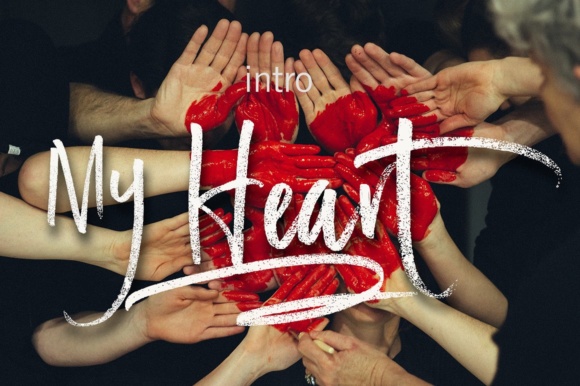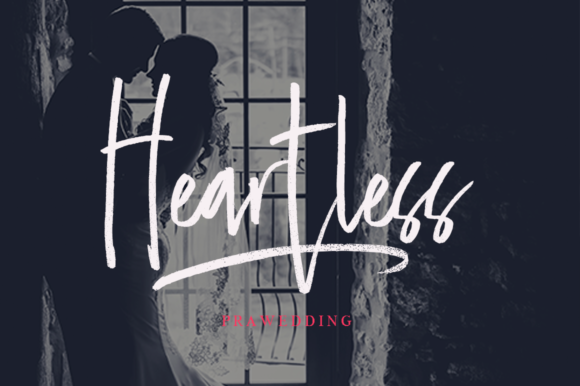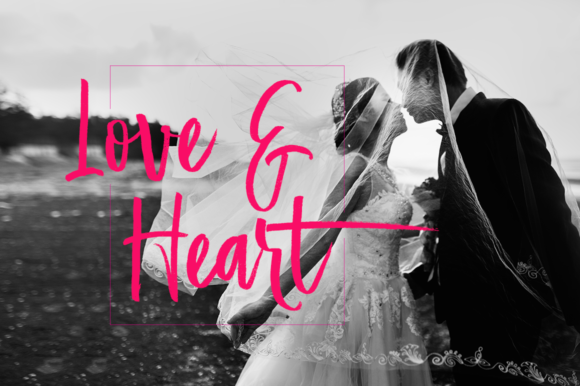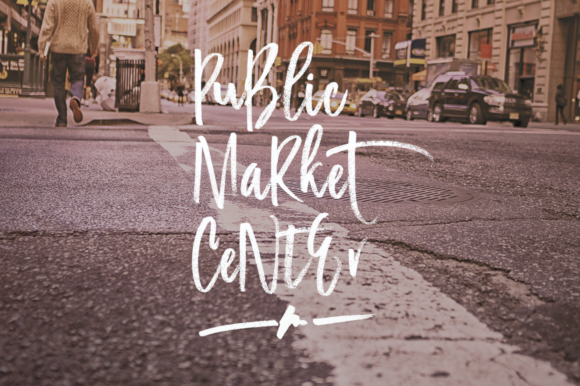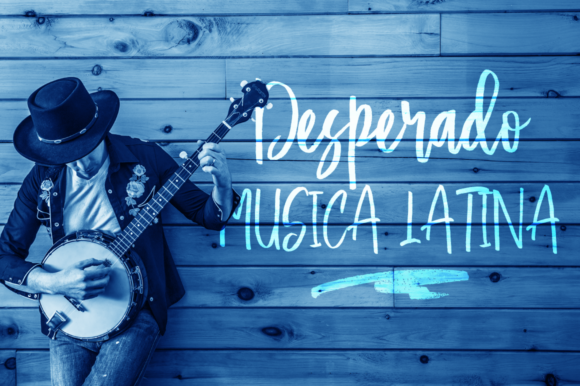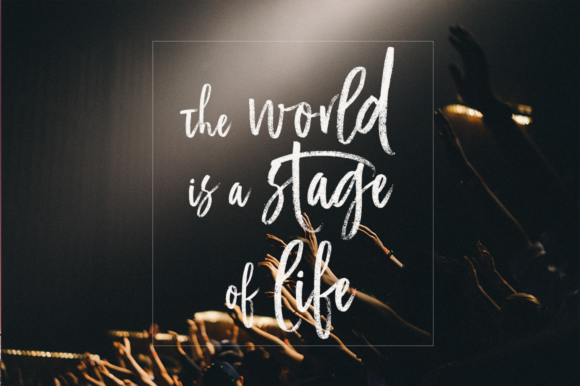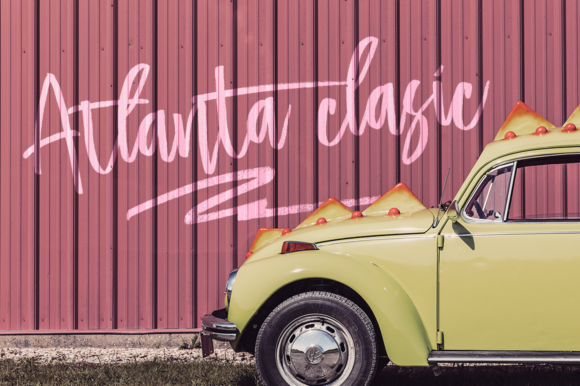
HomeScript FontsMy Heart Trio Font Script Fonts My Heart Trio Font FacebookXPinterestWhatsApp My Heart Trio Font Poster 2 My Heart Trio Font Poster 3 My Heart Trio Font Poster 4 My Heart Trio Font Poster 5 My Heart Trio Font Poster 6 My Heart Trio Font Poster 7 About My Heart Trio Font My Heart is a beautiful font trio. It has a handmade and natural writing style. DOWNLOAD NOW People also explored Captivate Script Font Roddeo Font Maeryn Font Sweet Family Font Font Rhenata Font Violent Brave Font Okiran Font Jacque Font Putrid 285 0 TagsMy Heart Trio Font Previous articleBonita FontNext articleBarbala Font LEAVE A REPLY Cancel reply Comment: Please enter your comment! Name:* Please enter your name here Email:* You have entered an incorrect email address! Please enter your email address here Website: Save my name, email, and website in this browser for the next time I comment. Personal Use Free Aliqa Personal Use Free Read more about this font Kidly Personal Use Free Read more about this font England Personal Use Free Read more about this font Rionaldo Angelo Personal Use Free Read more about this font BLOG To increase your work productivity, choose the most readable fonts. In today's fast-paced work environment, where digital communication and information consumption are integral to our daily routines, the choice of fonts can significantly impact... Best Fonts for YouTube Videos: Make Your Thumbnails Stand Out Where to Buy American Fonts Online in 2024 Free Fonts Risk: Why Free Fonts Can Be Dangerous for Designers